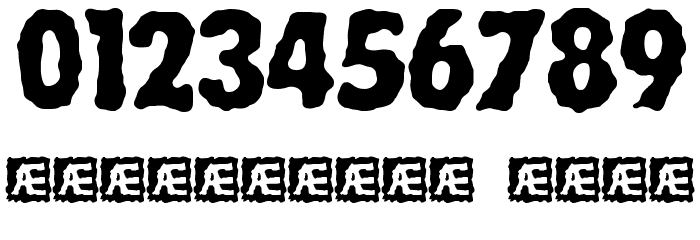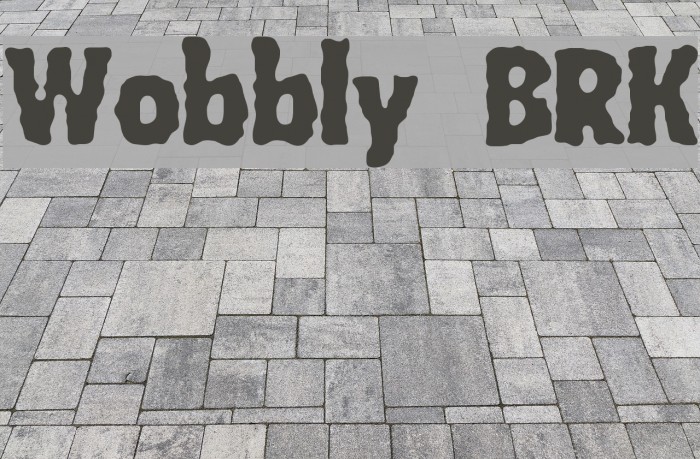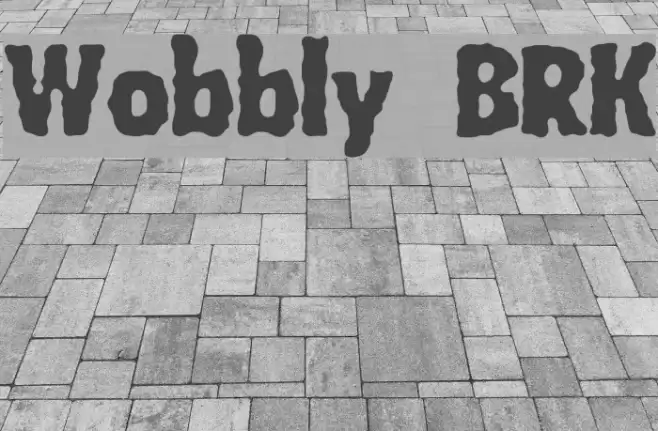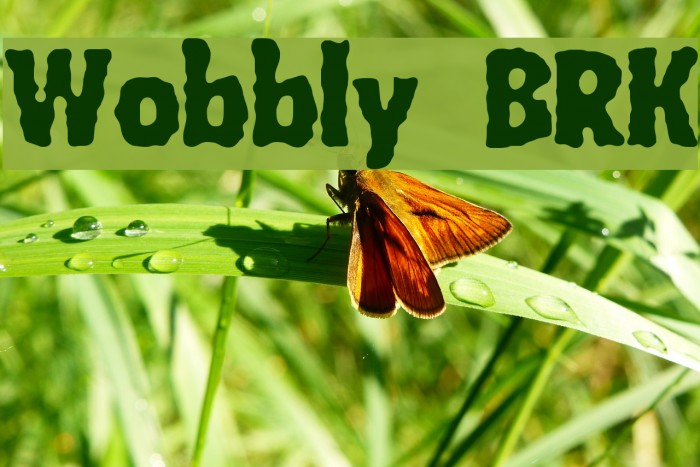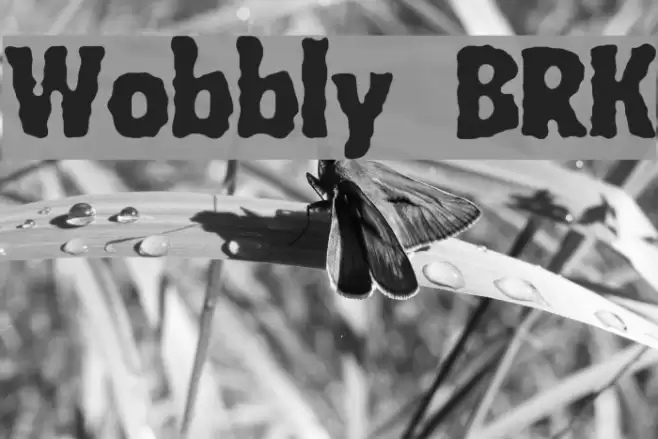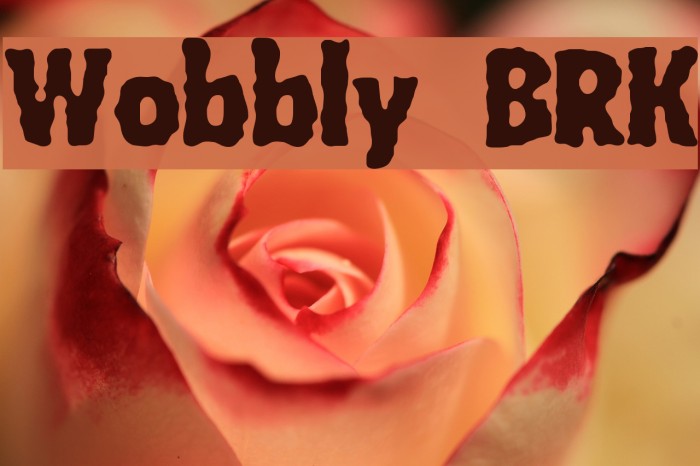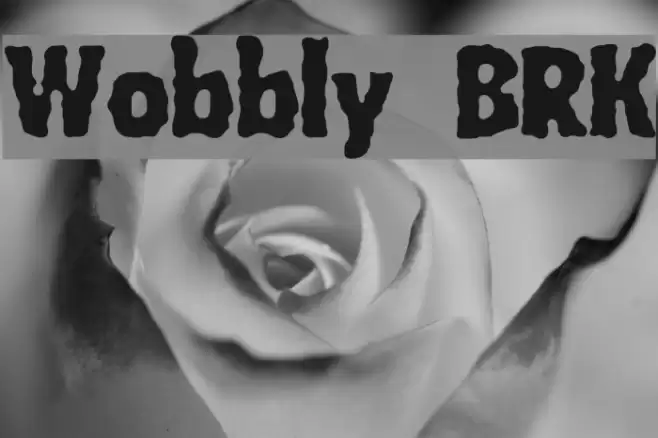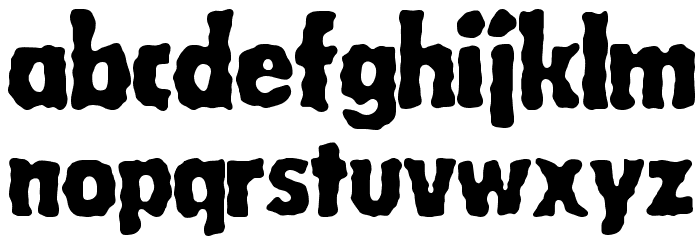
Wobbly BRK Font
Wobbly BRK Description
This font features a playful and irregular design, characterized by its wobbly and uneven strokes that give it a unique, hand-drawn appearance. The letters have a bold and chunky form, with each character exhibiting a distinct, organic shape that adds to its whimsical charm. The overall look is reminiscent of a fun, cartoonish style, making it stand out with its creative and informal vibe. The font's thick strokes and irregular edges contribute to its distinctive personality, making it suitable for projects that aim to convey a sense of fun and creativity.
| Overall Style | Playful, Cartoonish |
| Proposed Projects | Ideal for children's books, playful branding, party invitations, and creative posters. |